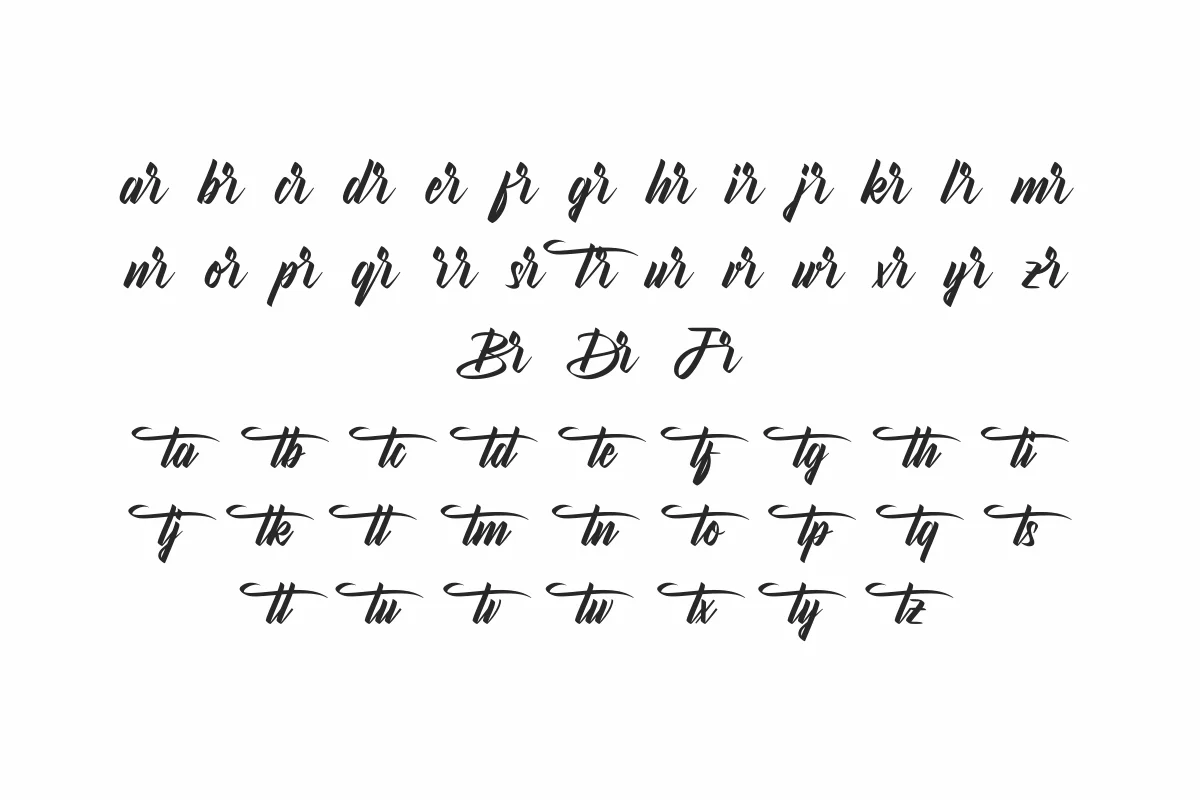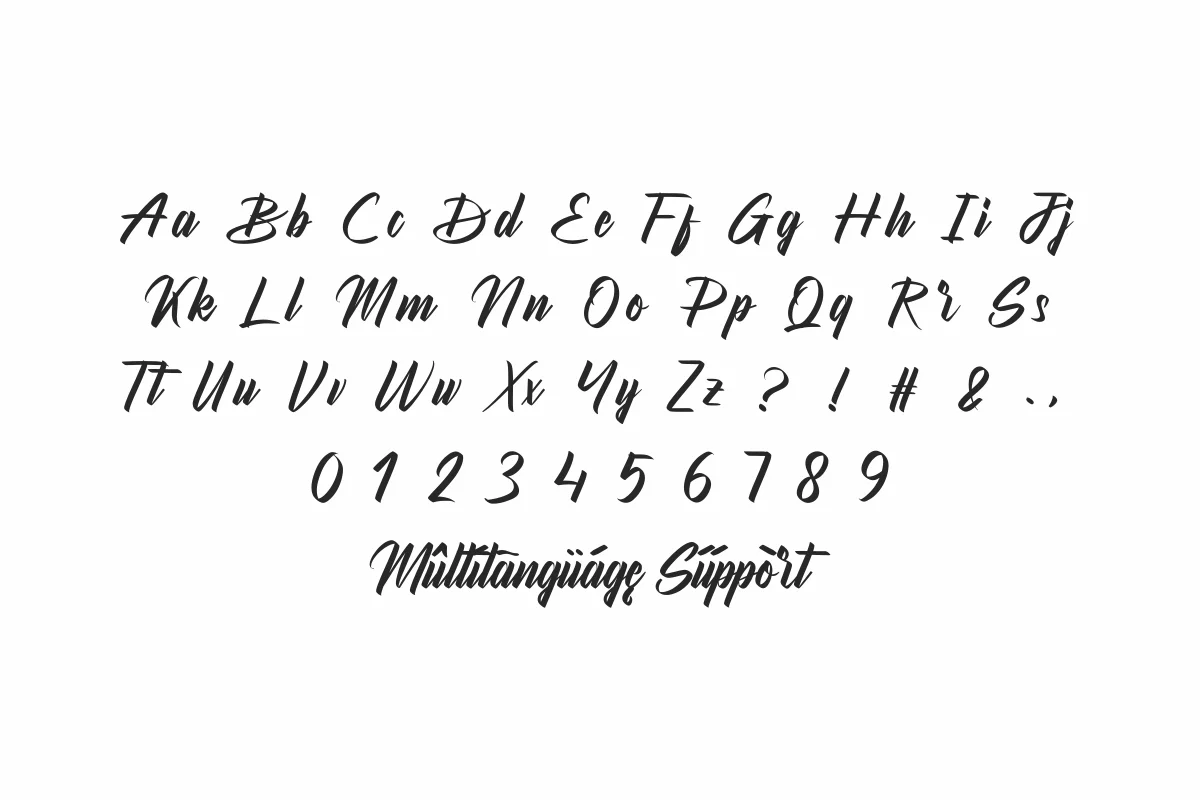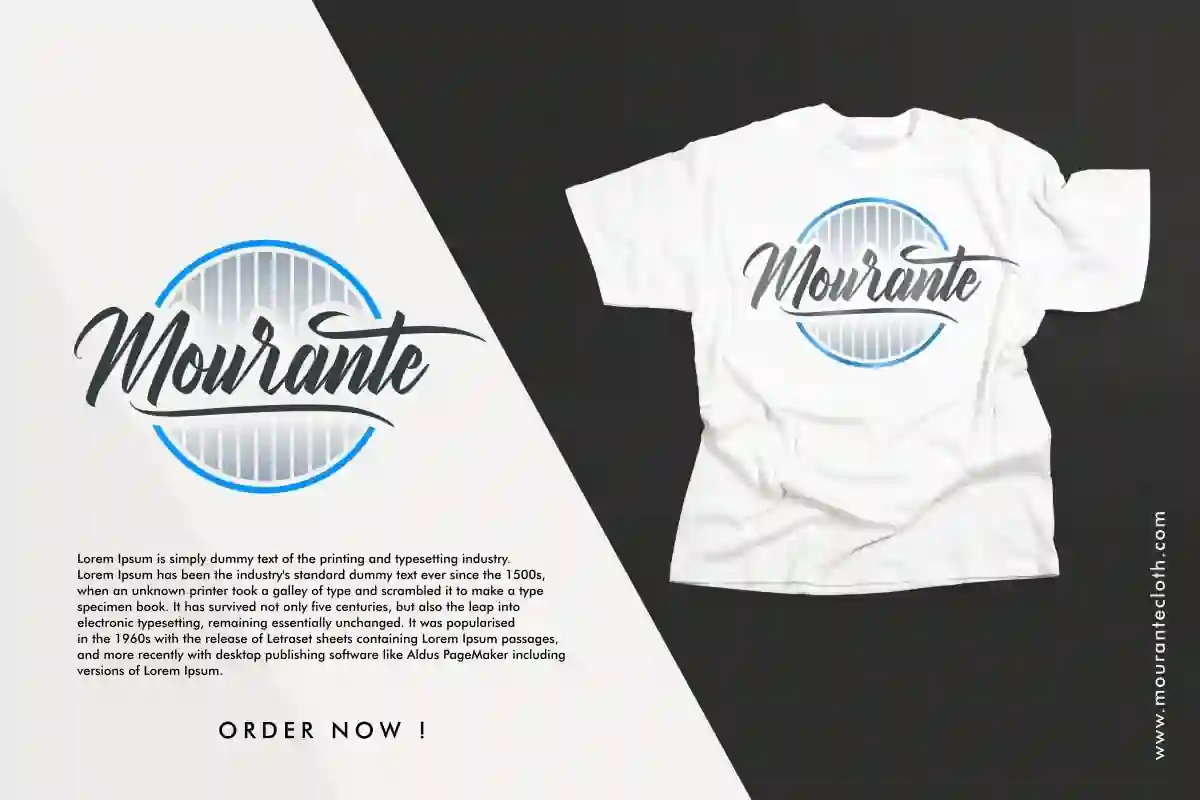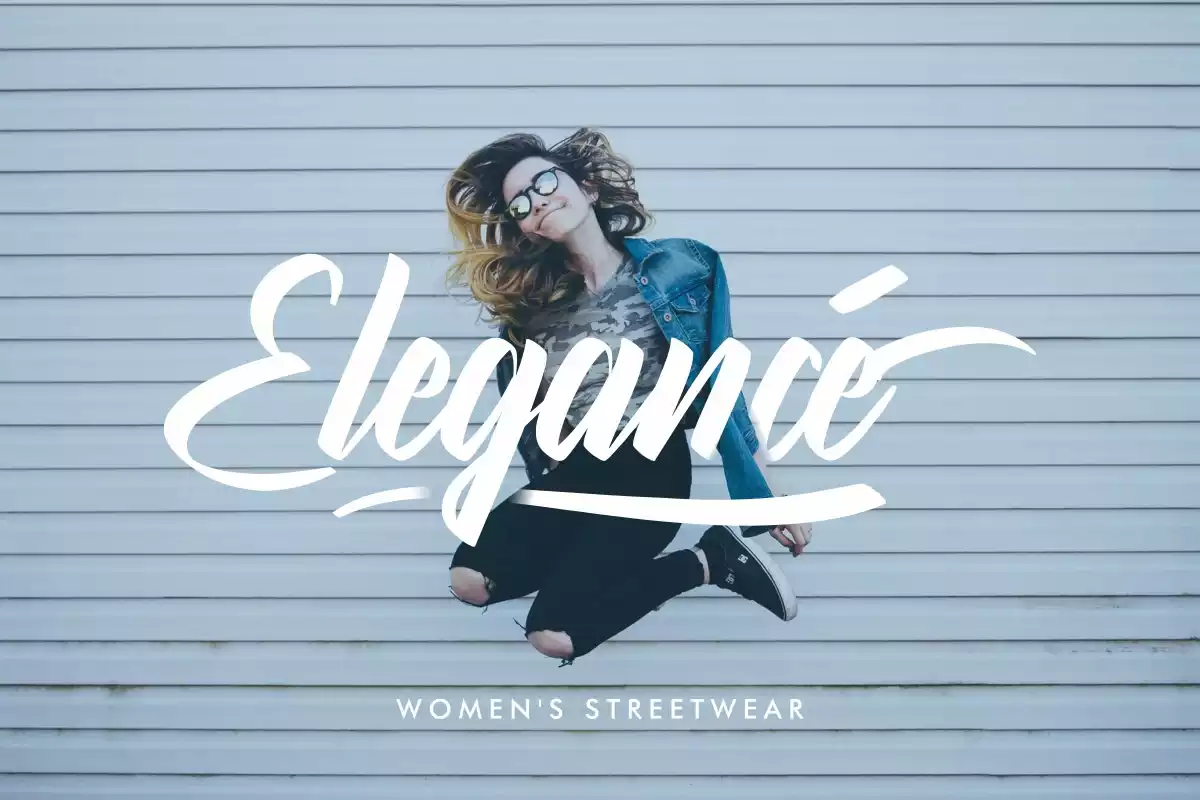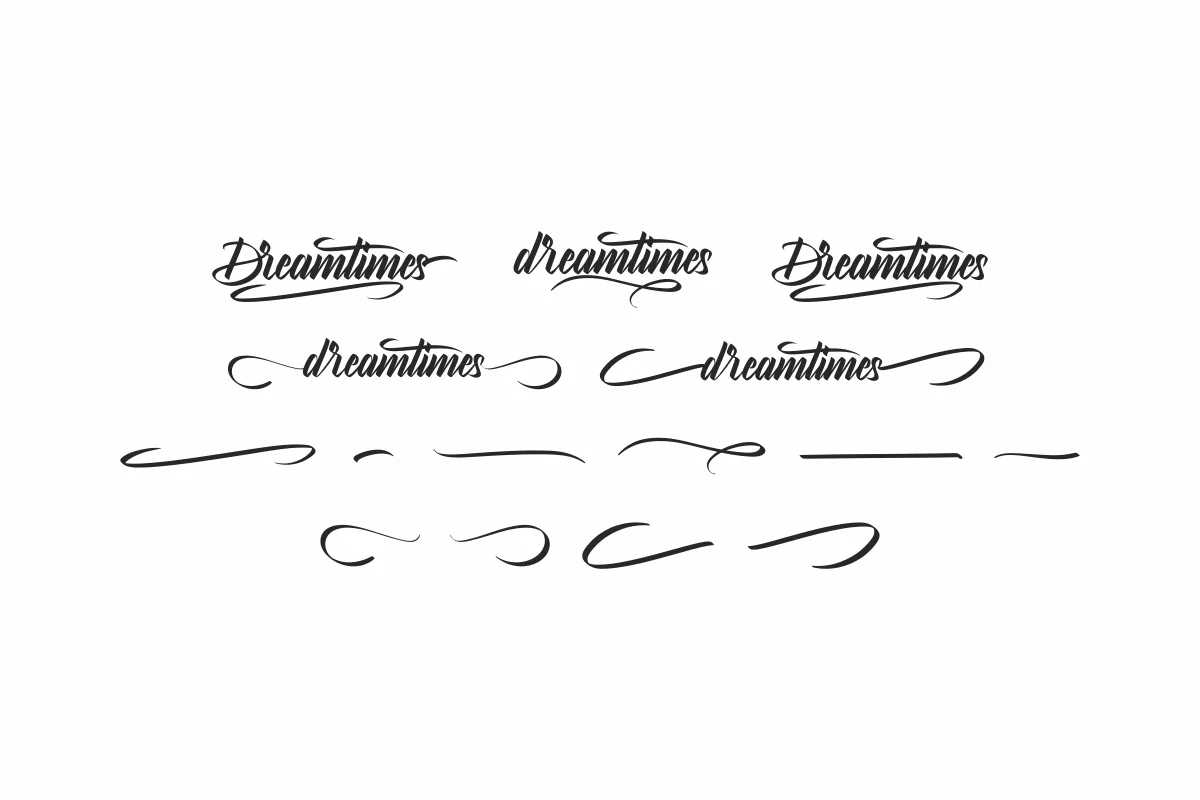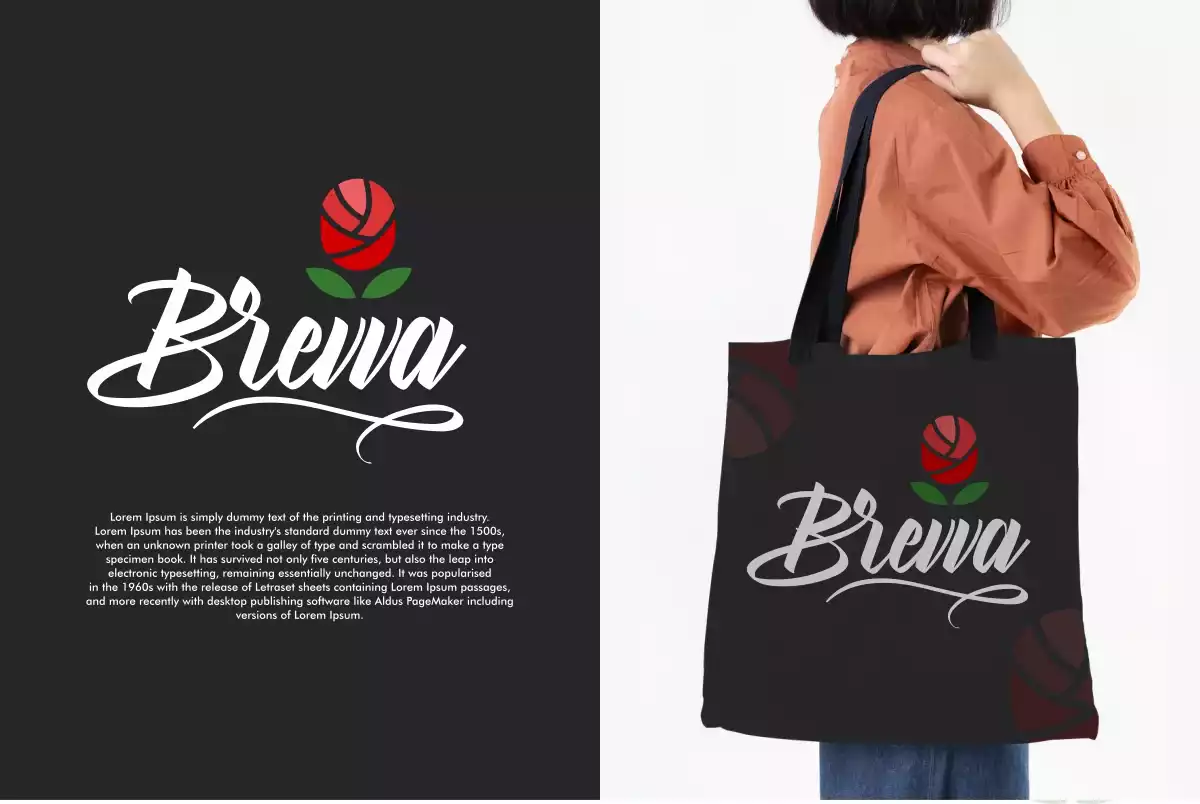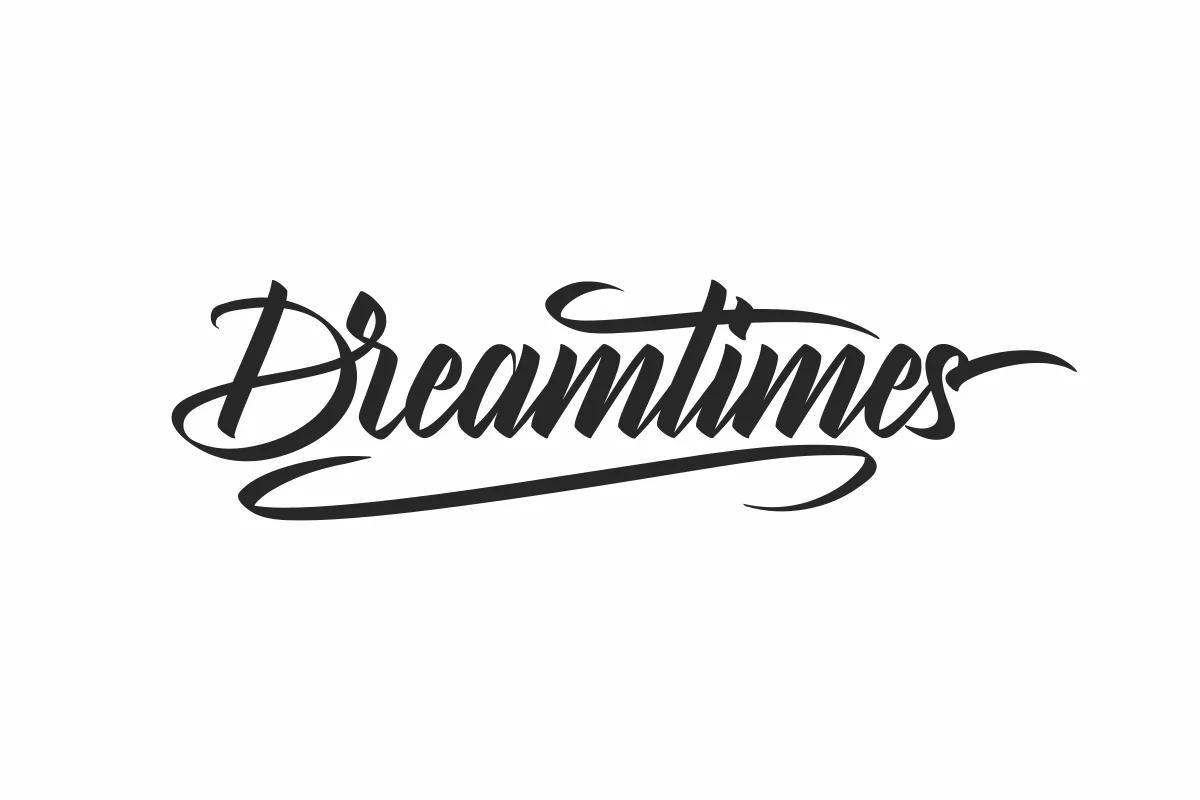
Dreamtimes
DreamtimesFont blends elegance, creativity, and readability into one powerful typeface. Whether you’re designing a logo, creating stunning social media graphics, working on branding, or publishing digital content – this font delivers visual impact without sacrificing legibility.
• ✅ Unique, handcrafted design
• ✅ Includes multilingual support and stylistic alternates
Unlike generic fonts, DreamtimesFont adds personality and soul to your projects. It’s more than a font – it’s a design tool that enhances creativity and boosts engagement.
Dreamtimes is a brush hand lettering font. Originally made in 2020 by NihStudio Font Designer :  Widiyanti and Suci. On the package you will get :
The theme style of the font is elegant, luxury, glamour, gold, vintage, stylish, sophisticated and classic brush style. The font will be match for this typeface: wedding, events, real estate, architect, law firm, florist, gardening, makeup artist, travel, hotel, musician etc